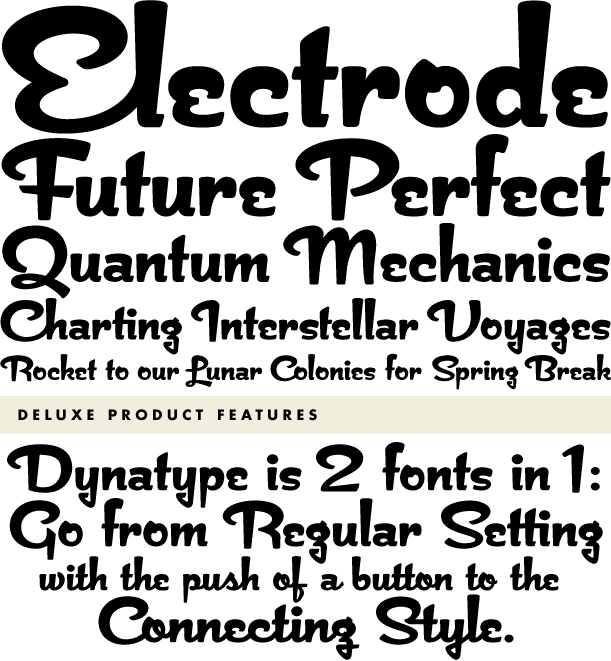
Dynatype
About Dynatype
Dynatype is the upright, slightly more formal cousin of Dynascript. It shares many of the characteristics of it\’s slightly older relation, but is drawn entirely from scratch and has it\’s own unique character. To some it may be reminiscent of various mid-century…